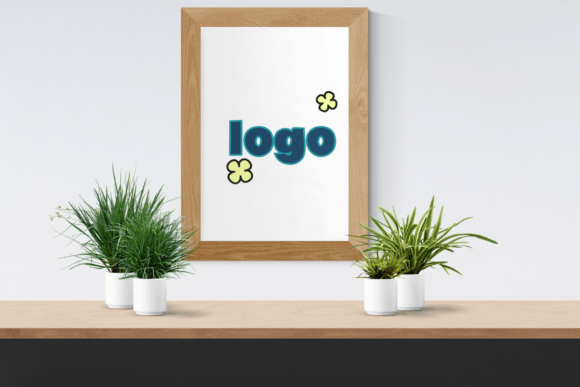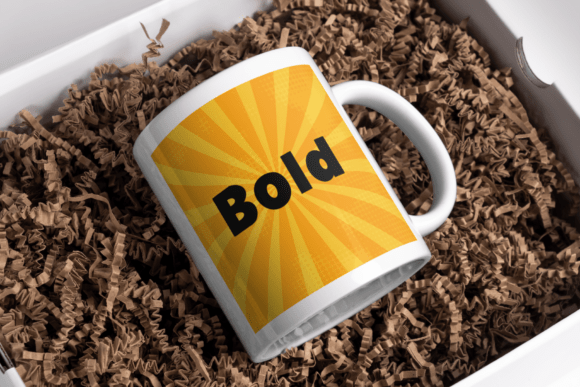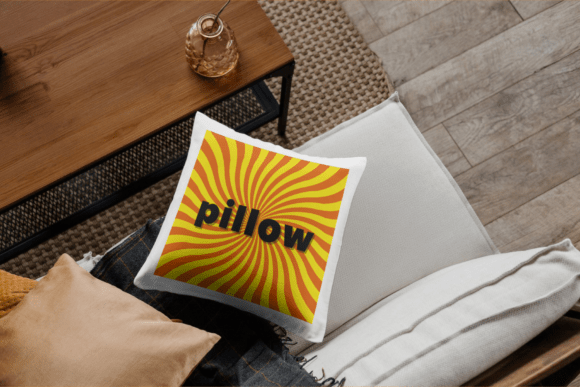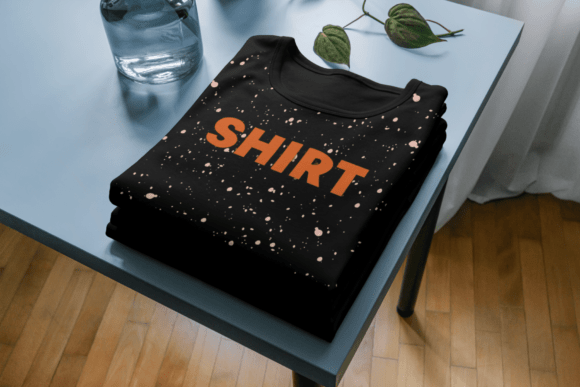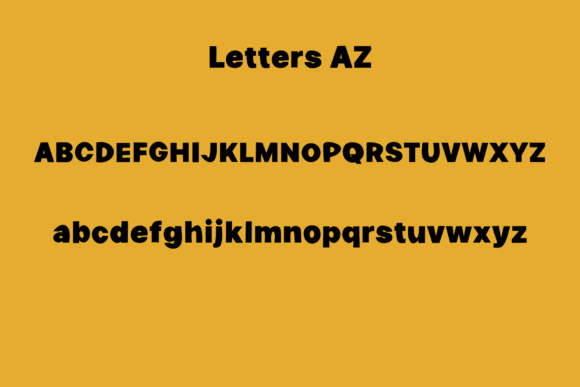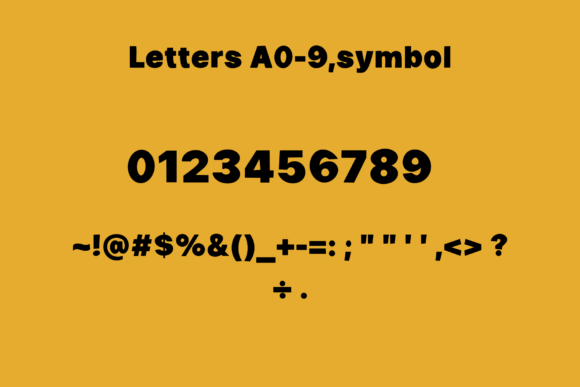
The Blocksy Font: A Bold and Timeless Choice for Creative Projects
I’ll never forget the time I was working on a branding project for a new coffee shop. My client wanted a bold, eye-catching title that would stand out on their packaging and advertisements. I spent hours scouring the internet for the perfect font, but nothing seemed quite right. That was until I stumbled upon Blocksy, a bold display sans-serif font that instantly caught my attention. Its thick and clean letterforms brought a modern yet timeless look that was perfect for the job. In this article, I’ll share my experience with Blocksy, its features, and how to make the most of it in your designs.
An Honest Review of Blocksy Font
What I Love About Blocksy ✨
- ✅ Bold and eye-catching: Blocksy is designed to make your text stand out, and it certainly delivers. Its thick letterforms are perfect for titles, logos, and posters.
- ✅ Clean and modern design: The font’s geometric style and smooth curves give it a fresh and contemporary look that’s perfect for a wide range of design projects.
- ✅ Versatile: Blocksy is suitable for both retro-inspired and minimalist layouts, making it a great addition to any designer’s toolkit.
- ✅ Easy to read: Despite its bold design, Blocksy is surprisingly easy to read, even at smaller sizes.
While Blocksy is an excellent font, it’s not without its limitations. For example:
- 🤔 Limited use for body text: Due to its bold design, Blocksy is best suited for titles and headings. It may not be the best choice for body text or longer paragraphs.
- 🤔 May not work well with certain design elements: Blocksy’s bold design can sometimes clash with certain design elements, such as intricate patterns or busy backgrounds.
The Backstory of Blocksy Font
Blocksy was designed by a team of typographers who wanted to create a bold and modern font that would stand out in a crowded design landscape. Inspired by classic sans-serif fonts, they added a geometric twist to create a unique and versatile design. The result is a font that’s perfect for titles, logos, and posters, as well as packaging, advertisements, and social media graphics.
Q: What is Blocksy font best used for?
A: Blocksy is best used for titles, logos, posters, and other design projects where a bold and eye-catching font is needed.
Q: Is Blocksy a versatile font?
A: Yes, Blocksy is a versatile font that’s suitable for a wide range of design projects, from retro-inspired layouts to minimalist designs.